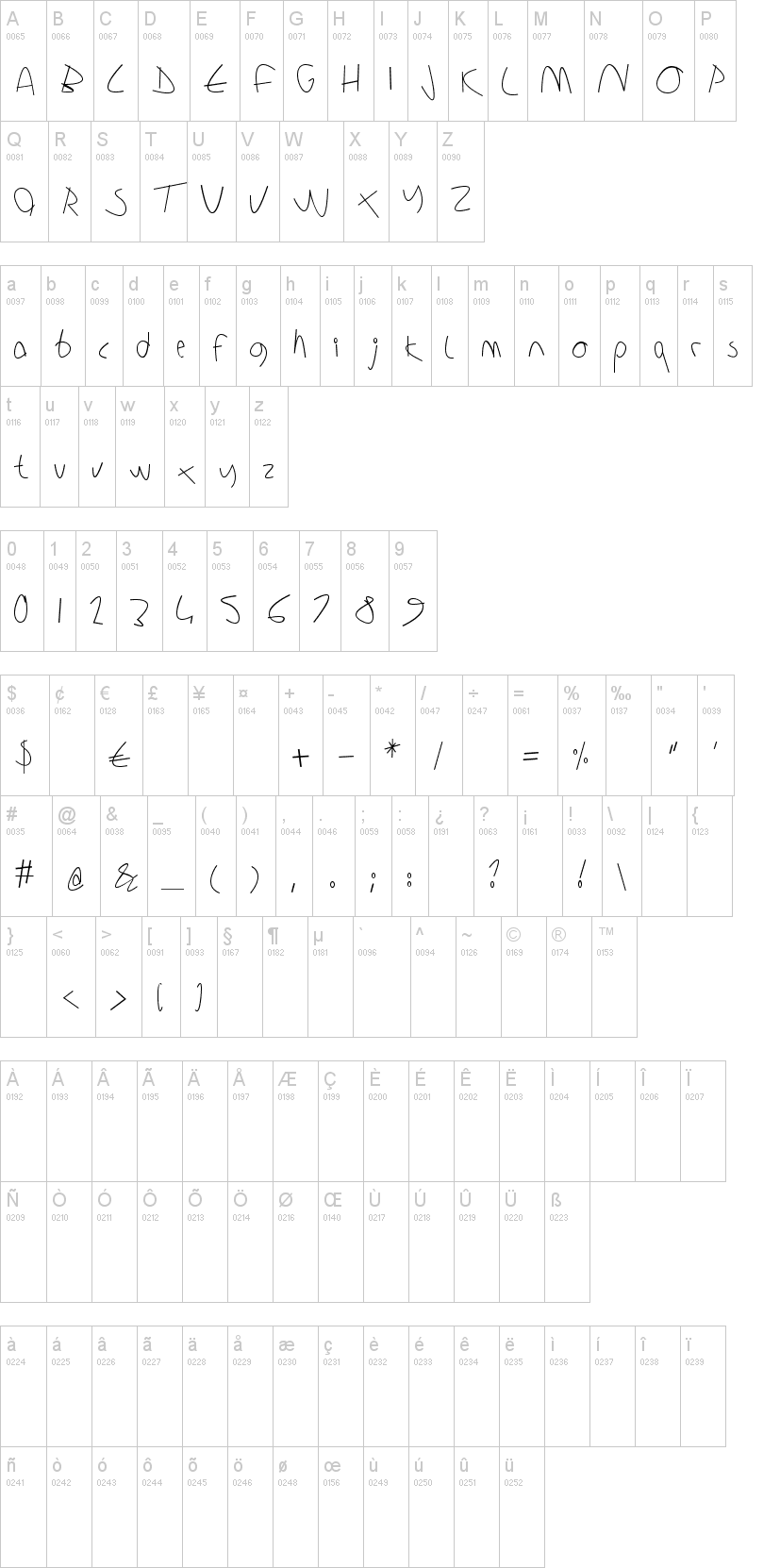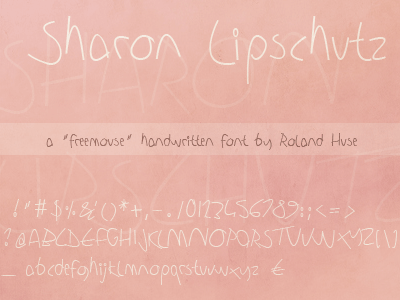
Шрифт Sharon Lipschutz Handwriting
SHARON LIPSCHUTZ is another freemouse handwritten font of mine.The name is a made up name in J.D. Salingers A Perfect Day for a Bananafish.